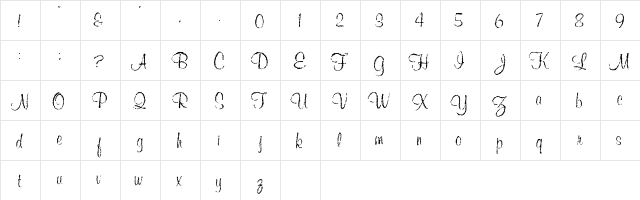
2Peas Rain 2Peas Rain
Design Context for 2Peas Rain Typeface
2Peas Rain is a composed and adaptable typeface that performs quietly and consistently across a wide range of design contexts.